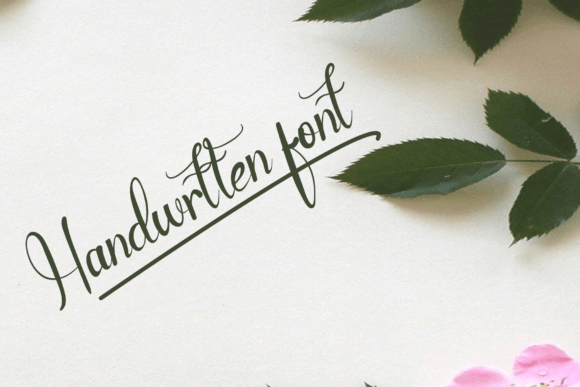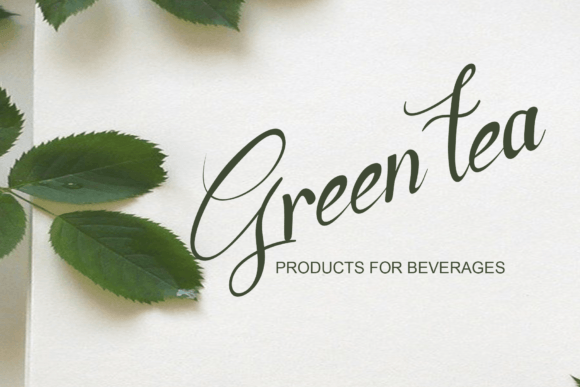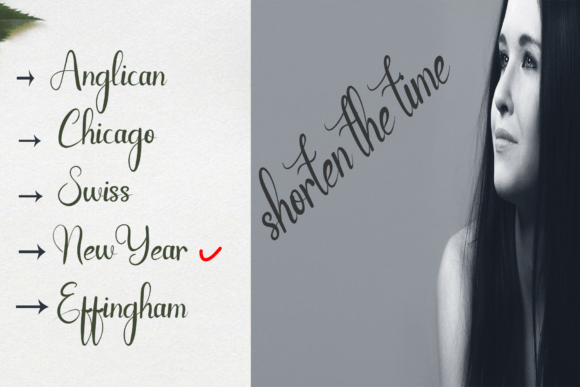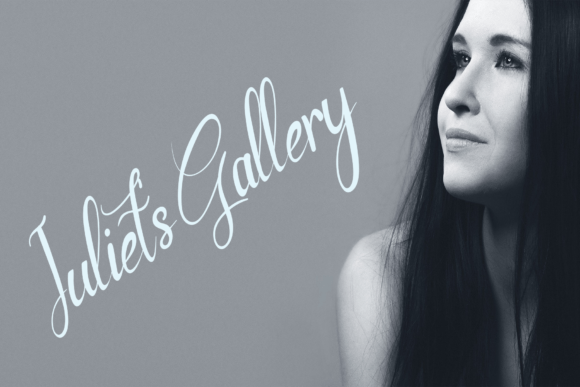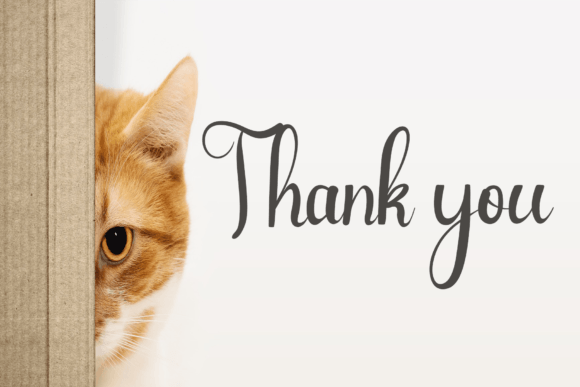
Introducing Butter Bread Font: Elevate Your Designs with Timeless Elegance
Are you on the hunt for a font that exudes sophistication, elegance, and a touch of modern flair? Look no further than the Butter Bread Font, a stylish handwritten font that is sure to elevate your designs to new heights. Inspired by timeless classic calligraphy, this font boasts a contemporary atmosphere and impeccable form, making it the perfect addition to your typography arsenal.
The Story Behind Butter Bread Font
Butter Bread Font is a carefully crafted typeface that draws inspiration from the world of classic calligraphy. With its balanced and varied letterforms, this font is designed to bring a touch of sophistication and refinement to your projects. Whether you’re working on a branding campaign, a website, or a craft project, Butter Bread Font is the perfect choice for designers and crafters looking to add a dash of elegance to their work.
What Sets Butter Bread Font Apart
So, what makes Butter Bread Font stand out from the crowd? Here are just a few features that set it apart:
- Contemporary atmosphere: Despite being inspired by classic calligraphy, Butter Bread Font has a distinctly modern feel that will make your designs stand out.
- Impeccable form: Each letterform has been carefully crafted to ensure that the font is both beautiful and legible.
- Balanced and varied: The font features a range of letterforms, ensuring that your text stays engaging and visually appealing.
Butter Bread Font is a versatile typeface that is perfect for a wide range of projects, including:
- Branding and logos: Use Butter Bread Font to create a sophisticated and memorable brand identity.
- Web design: Add a touch of elegance to your website with this beautiful font.
- Crafting and DIY projects: Use Butter Bread Font to add a personal touch to your handmade crafts, such as journals, cards, and scrapbooking projects.
Tips for Using Butter Bread Font
Here are a few tips for getting the most out of Butter Bread Font:
- Pair it with a sans-serif font: For a striking contrast, pair Butter Bread Font with a clean sans-serif font.
- Experiment with colors: Butter Bread Font looks great in a range of colors, from bold and bright to soft and pastel.
- Use it sparingly: While Butter Bread Font is beautiful, it can be overwhelming if overused. Use it sparingly to add emphasis and create visual interest.
In conclusion, Butter Bread Font is a stylish and sophisticated typeface that is perfect for designers and crafters looking to add a touch of elegance to their projects. With its contemporary atmosphere, impeccable form, and balanced and varied letterforms, this font is sure to elevate your designs to new heights. So why wait? Download Butter Bread Font today and start creating beautiful, eye-catching designs that will leave a lasting impression.
Key Features of Butter Bread Font
- Stylish handwritten font with a contemporary atmosphere
- Inspired by timeless classic calligraphy
- Impeccable form and balanced letterforms
- Perfect for branding, web design, and crafting projects
- Easy to read and visually appealing
Whether you’re a seasoned designer or a crafty DIY enthusiast, Butter Bread Font is a must-have addition to your typography collection. So go ahead, get creative, and see the amazing things you can achieve with this beautiful font!